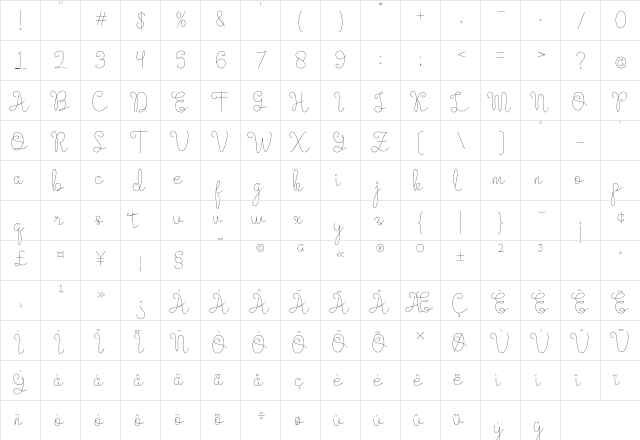
Evangetta Thin Regular
| Foundry | Wondoo Studio Co. |
| Designer | Herya Wildan |
Design Context for Evangetta Thin Typeface
Evangetta Thin takes a measured approach to typography — its balanced proportions and neutral character make it a reliable workhorse for both digital and print work. Its slender proportions lend an understated elegance to any composition.